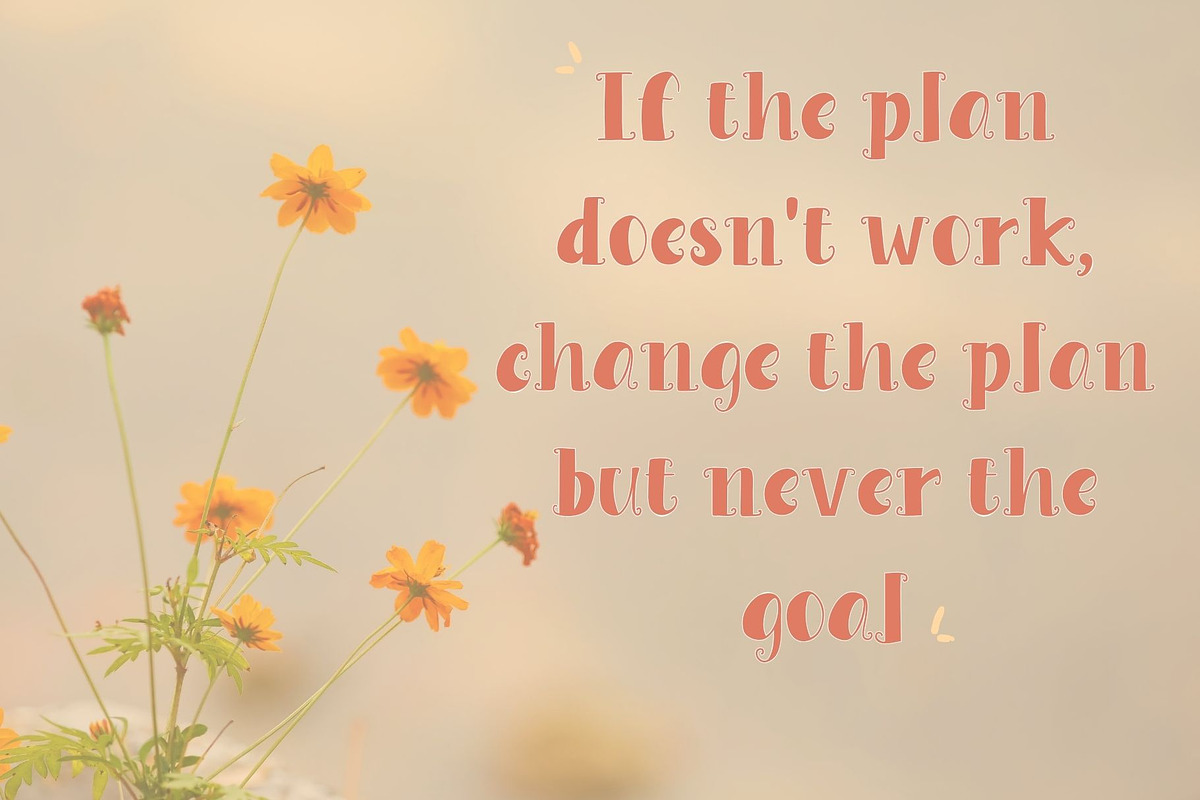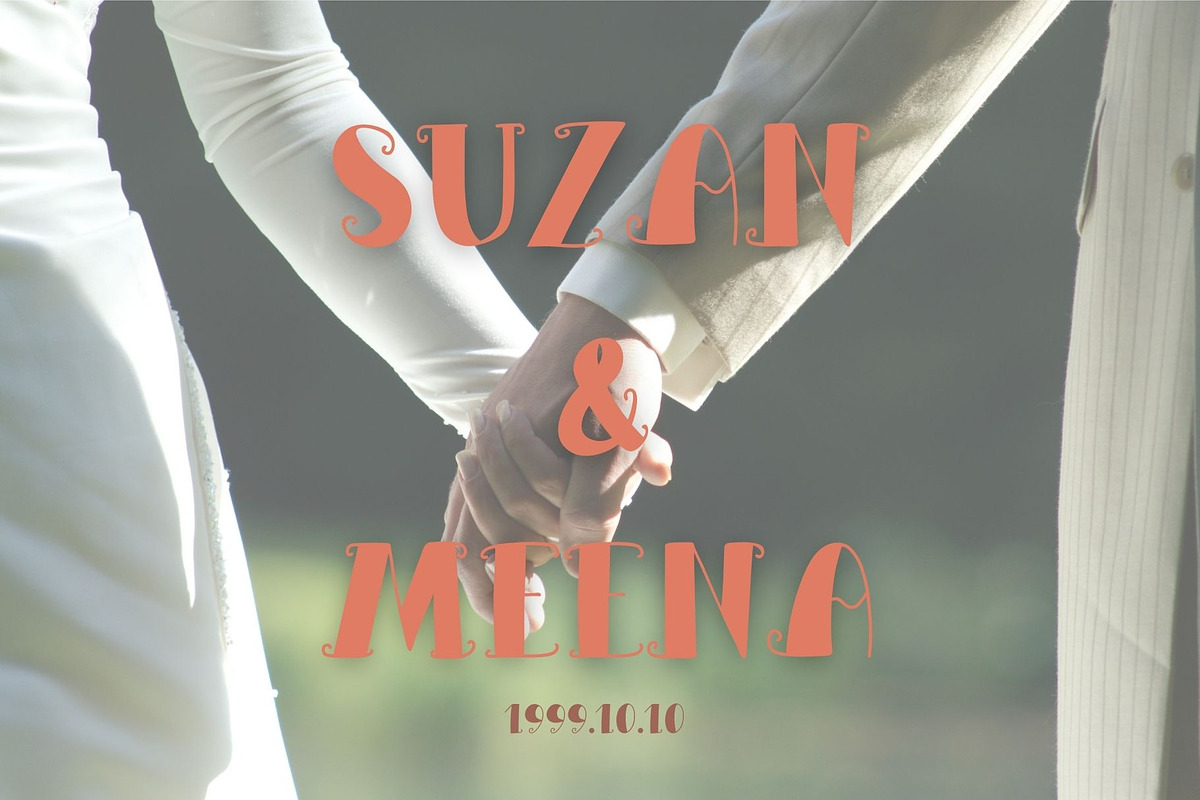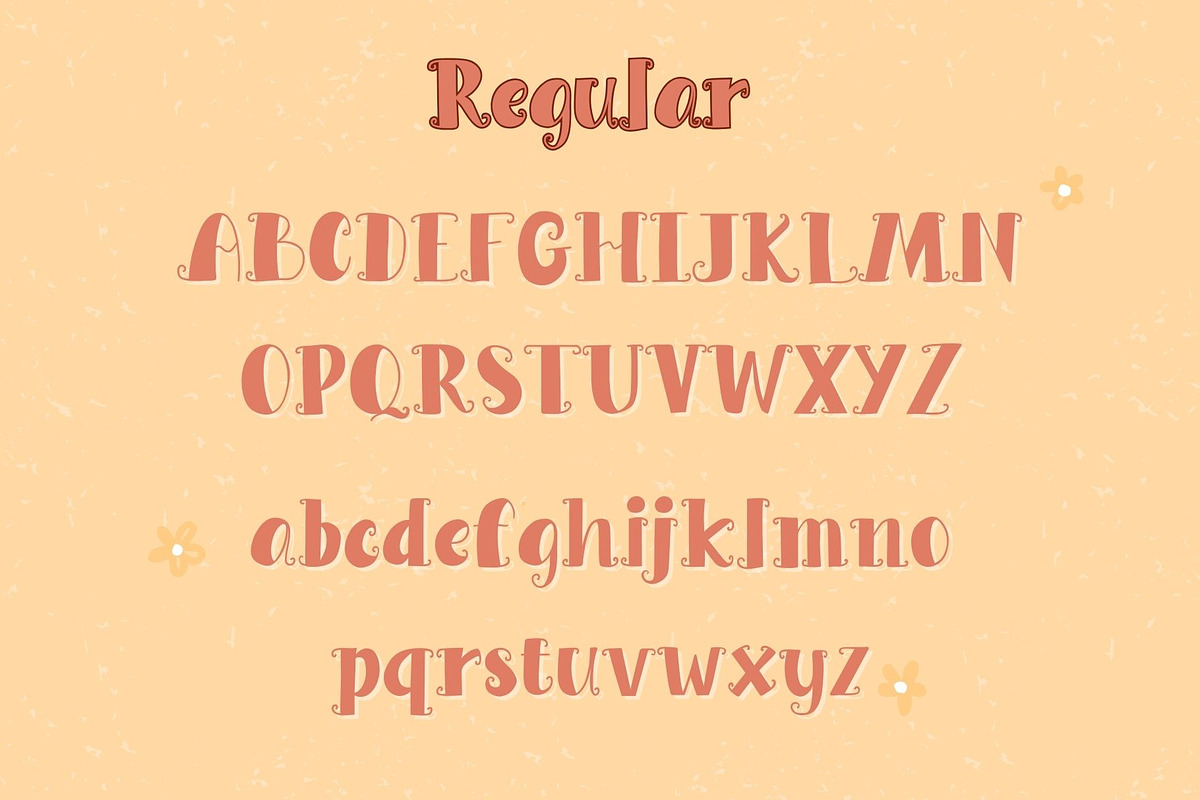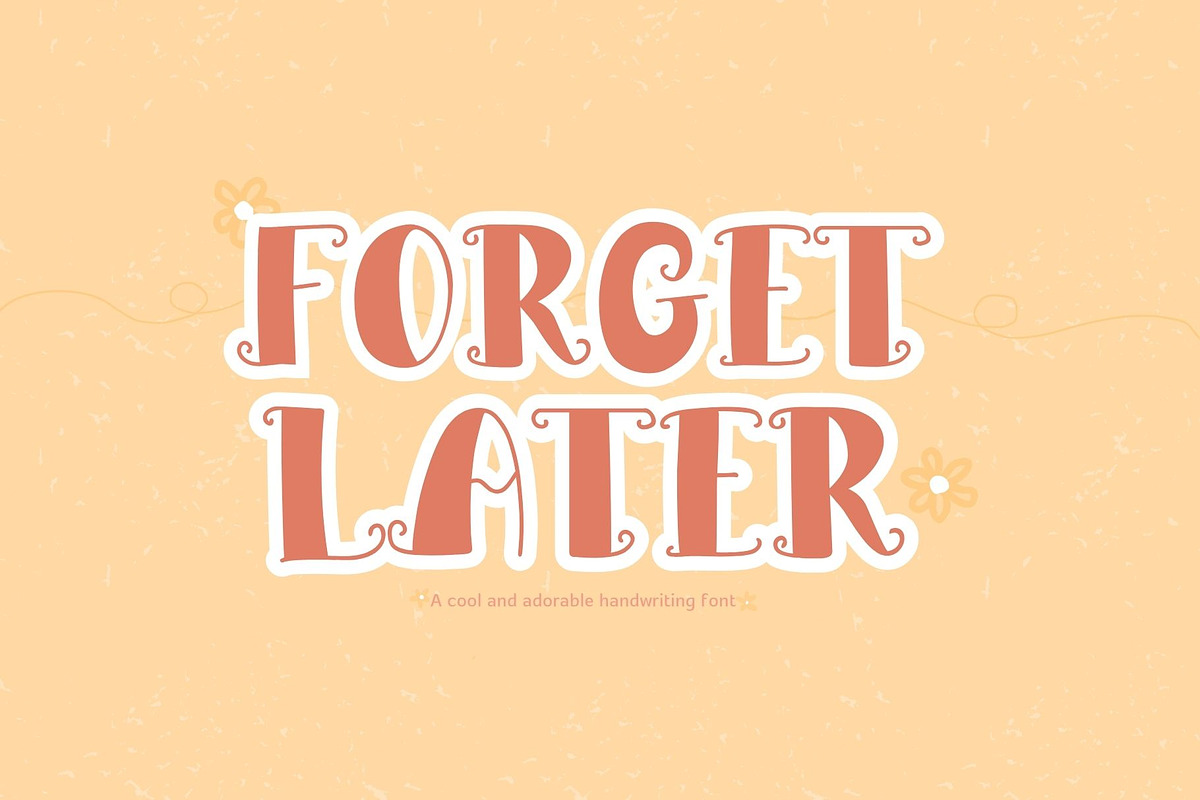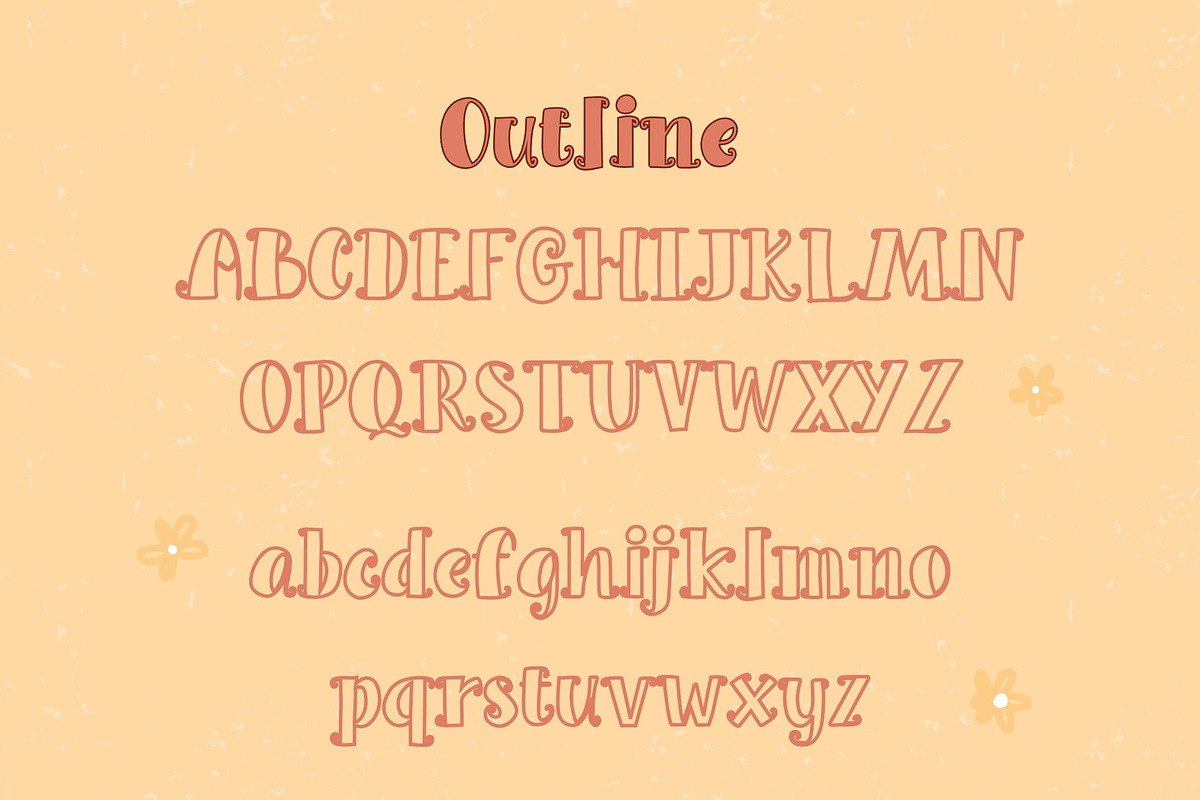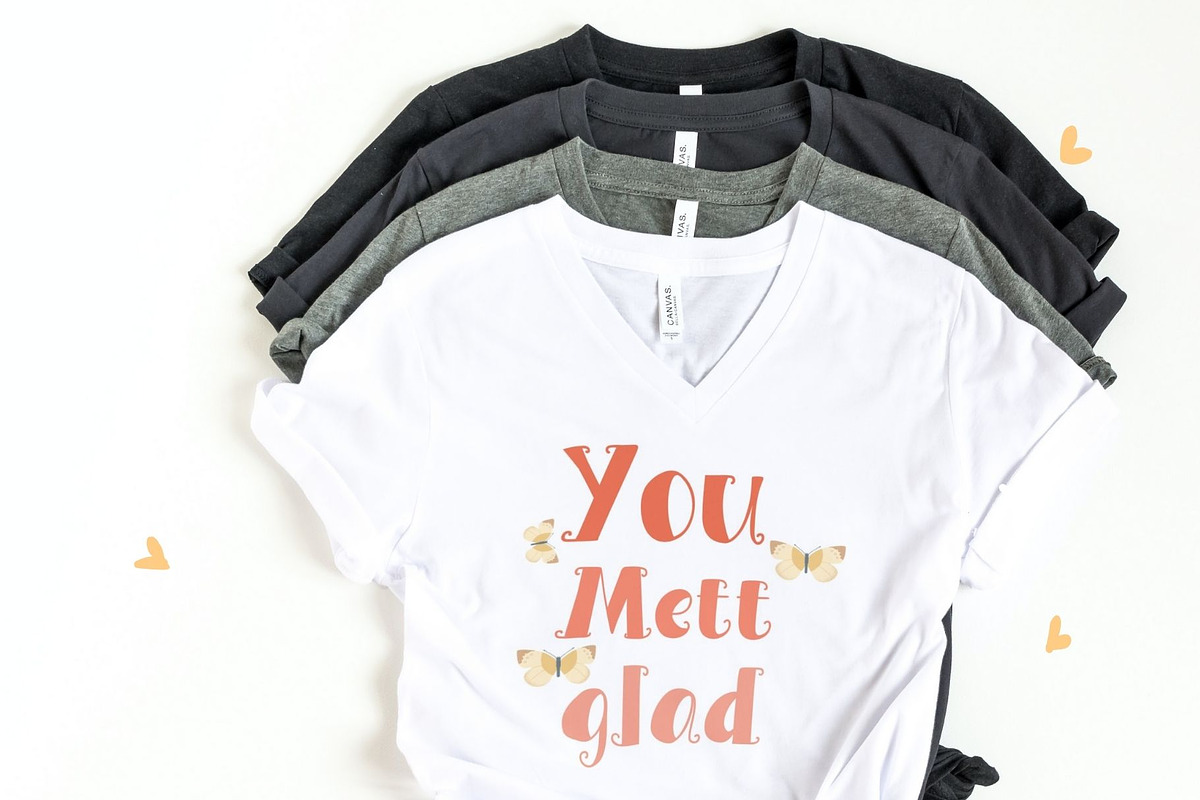
Forget later font.
Forget later a cute and adorable handwriting font 🍃 It's a cute and stylish font that you can use for your design projects, such as designing bags, clothing, glassware, hats, and more. It will make your work look fresh and intriguing.